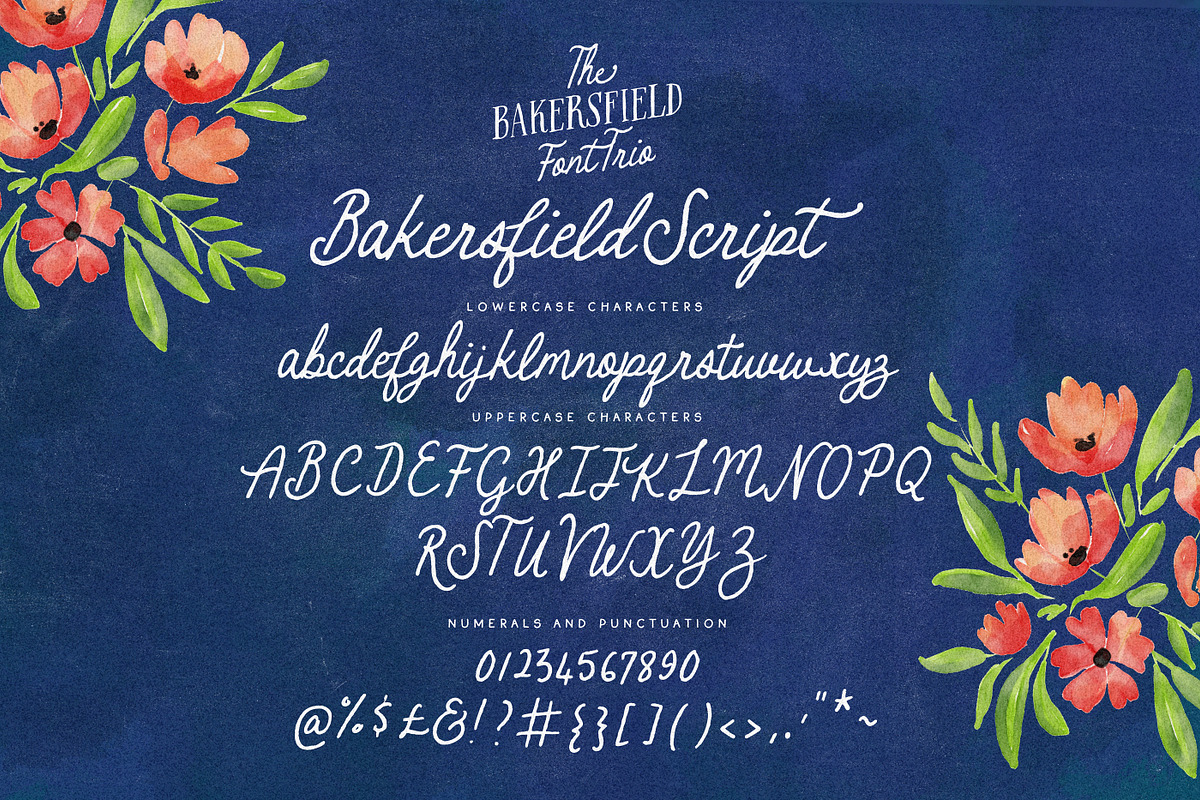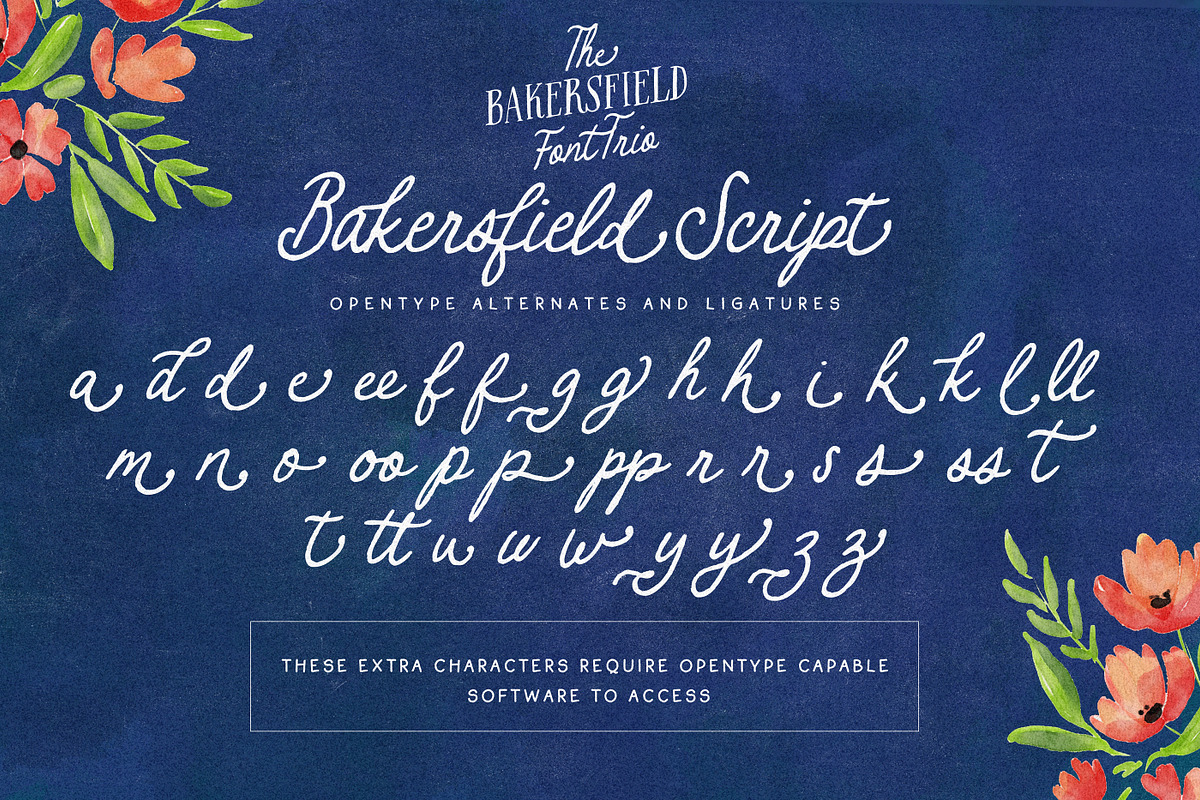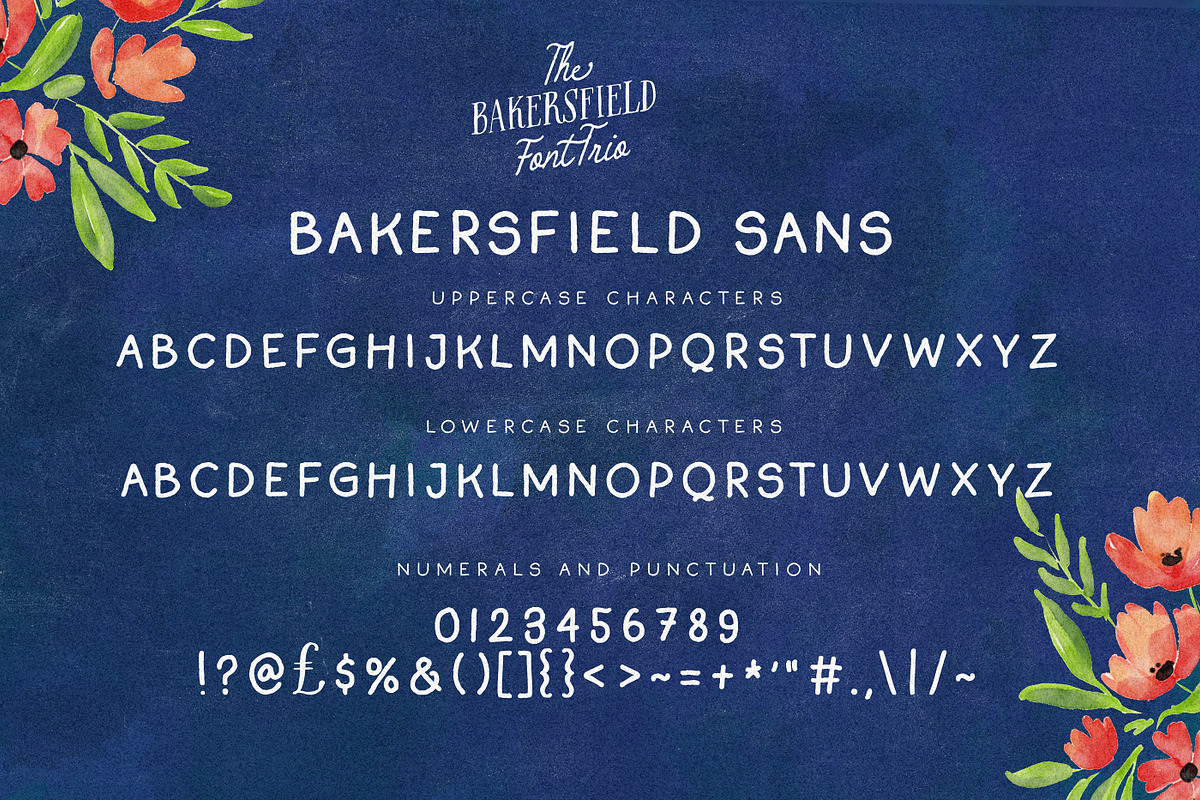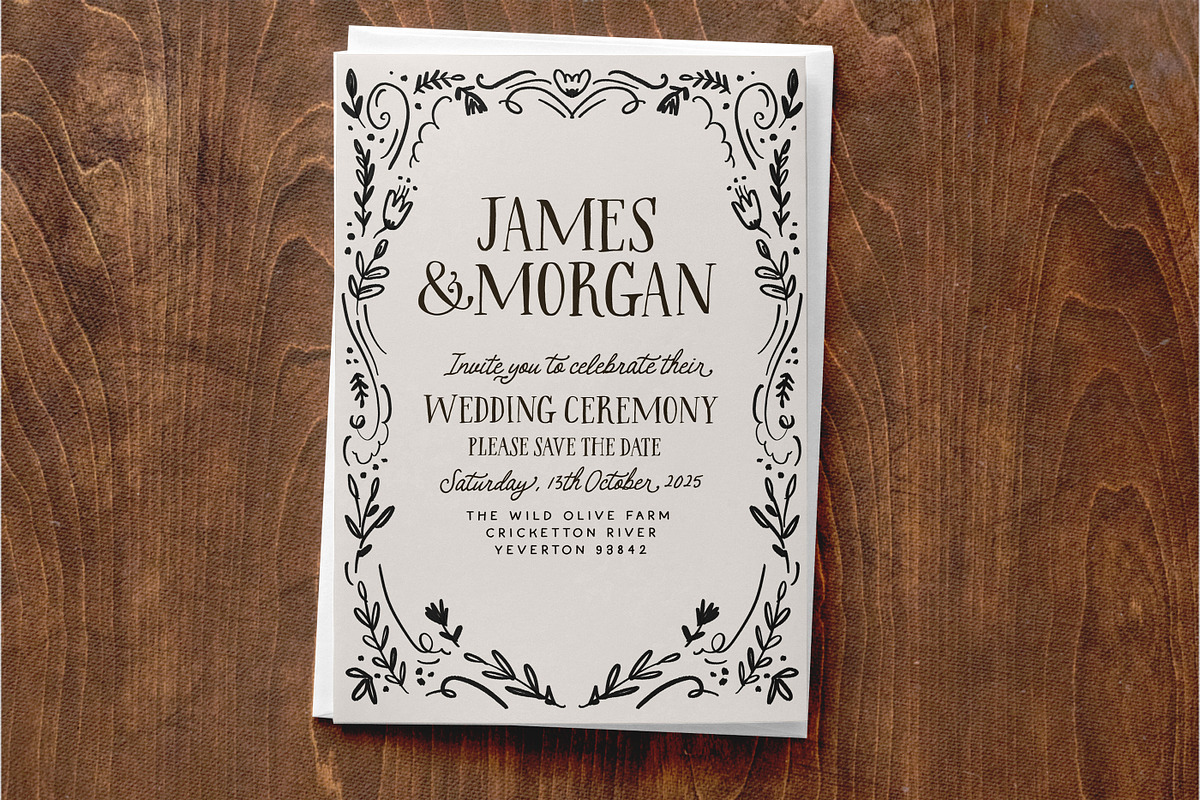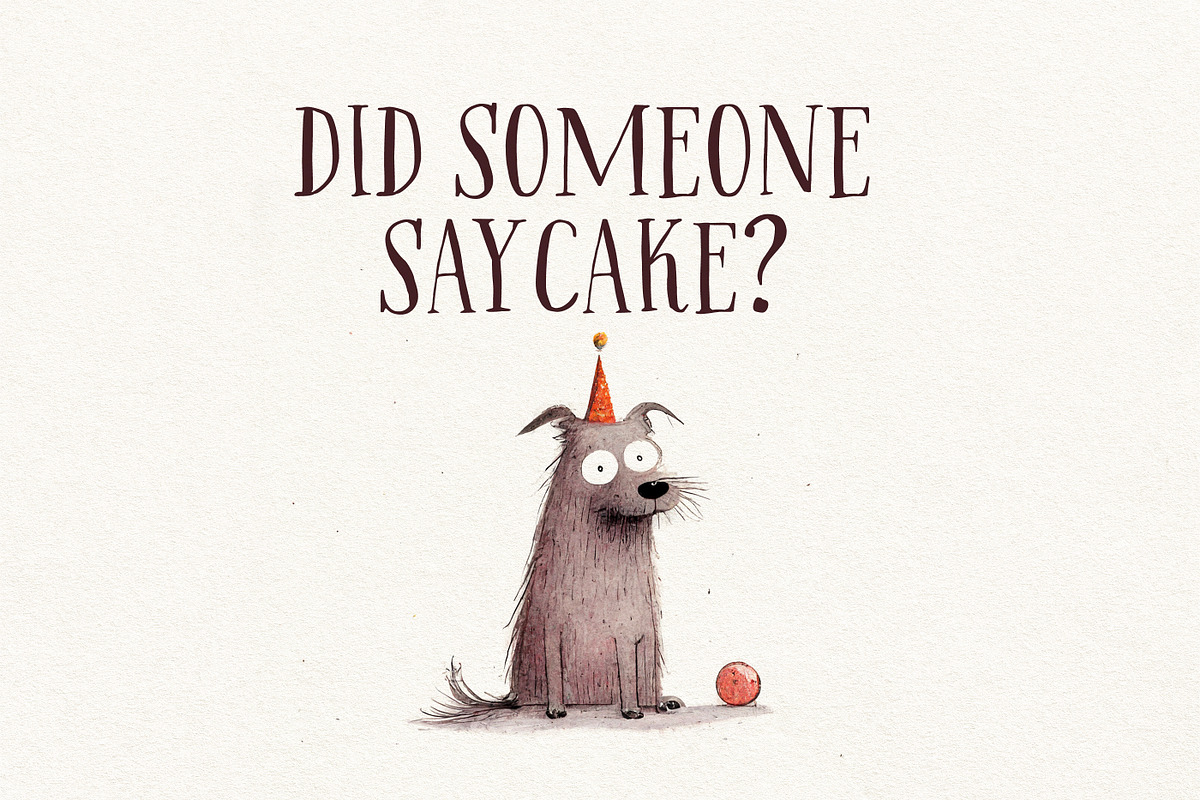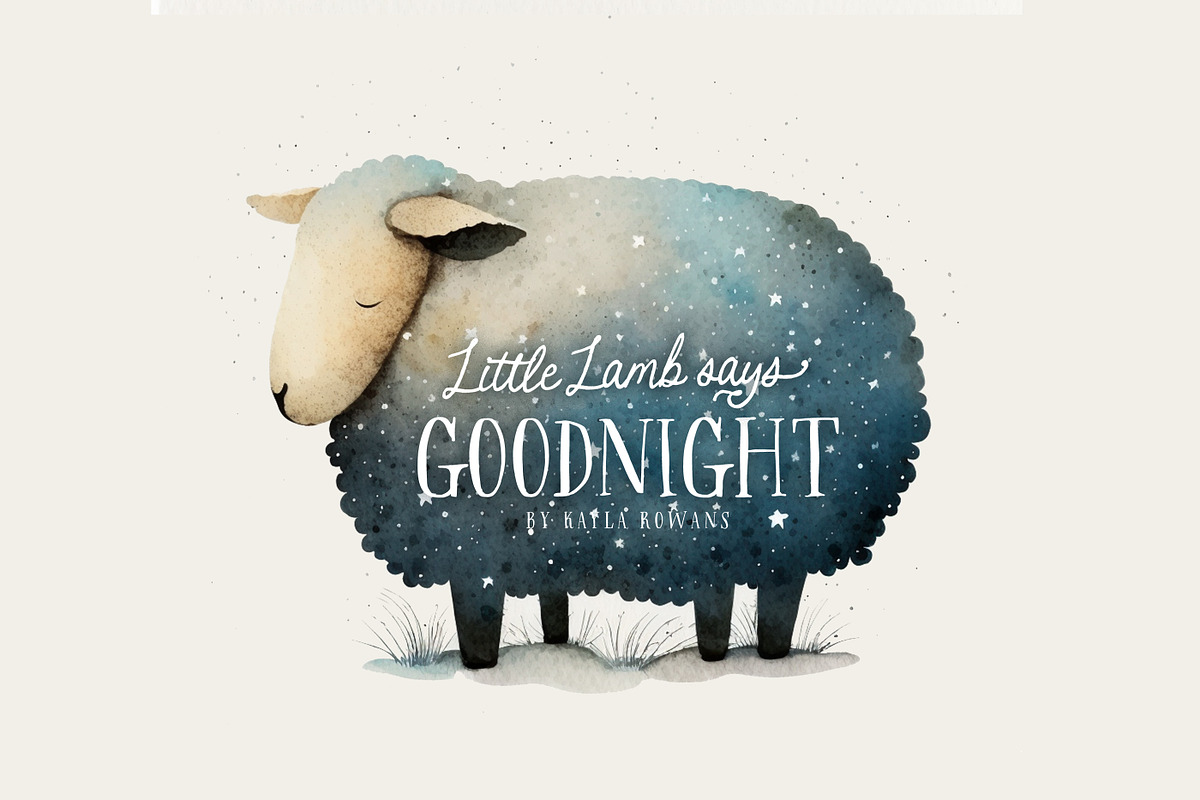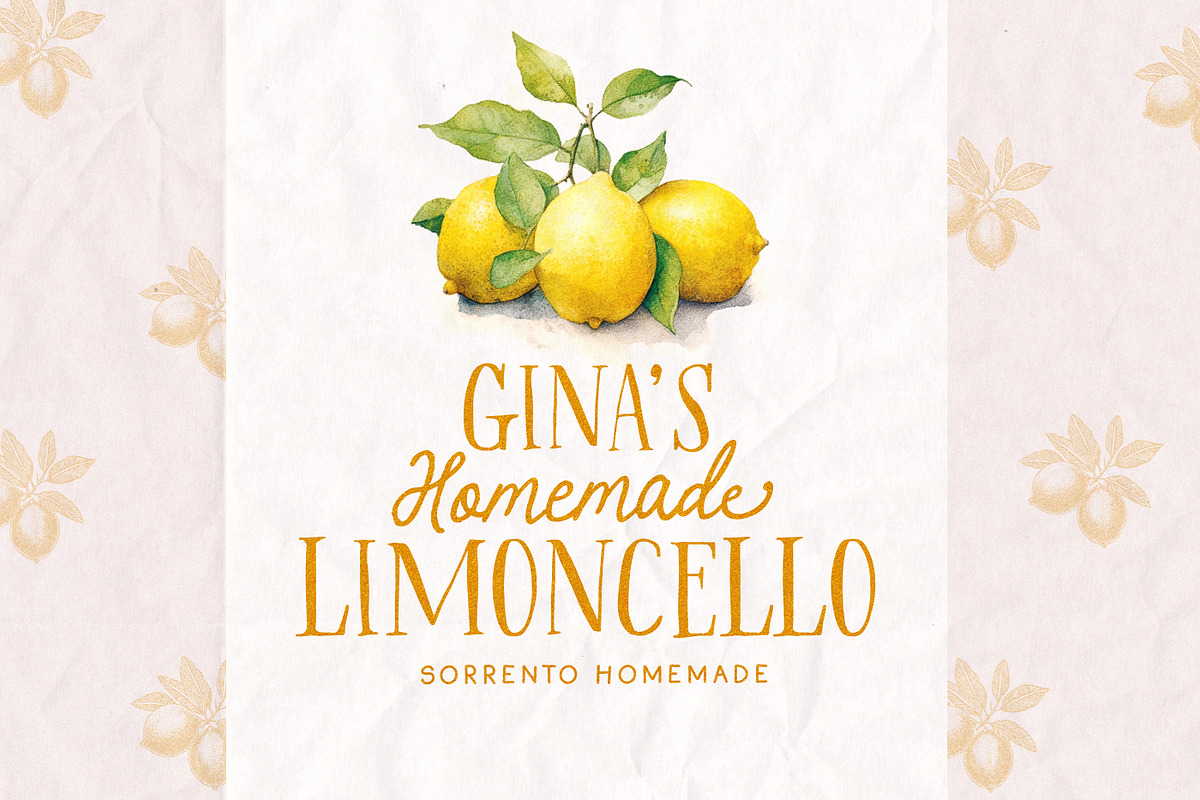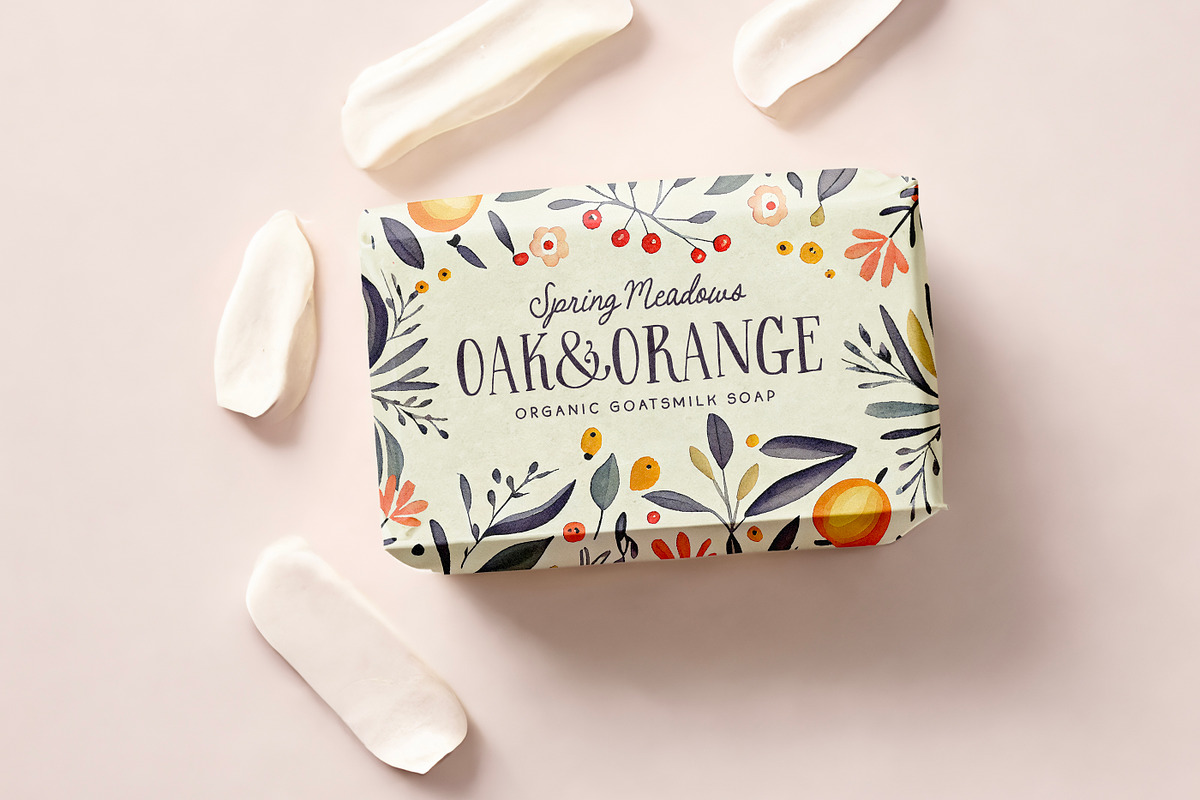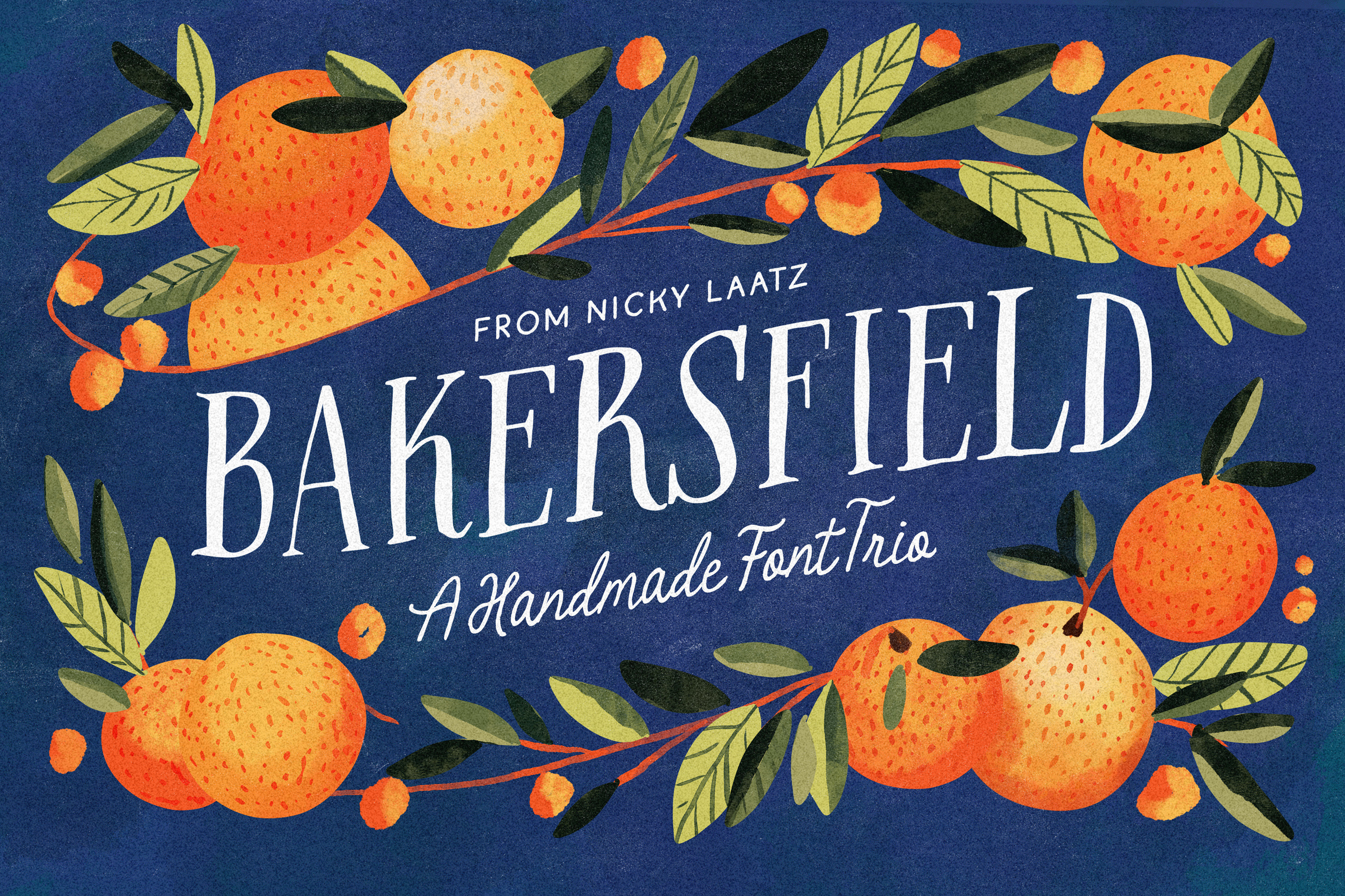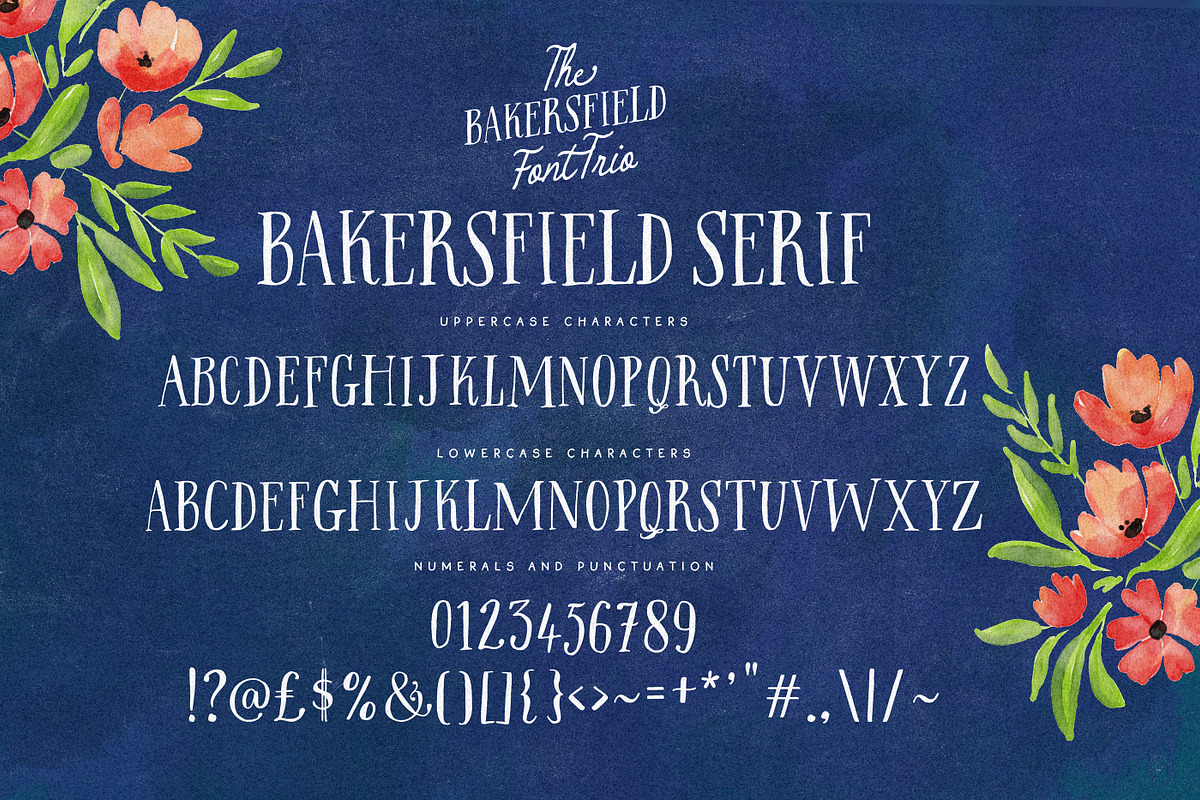
The Bakersfield Font Trio
Say hello to The Bakersfield Font Trio! If you collect my handwritten packs, this one is another must for mixing and matching with your current packs :) There are three fonts included in this typeface pack, one with a variant style, so 4 fonts in total.
1 - Bakersfield Handwritten Serif Perfect for adding that touch of rustic and whimsical:) This font has differing upper and lowercase all caps letters.
2 - Bakersfield Handwritten Script - if she looks familiar, it's because she's a close cousin of the inky edged Neptune Rising Script, but with some tweaking to give her a slightly different personality :) NOTE : To access the sweet little alternate letters and ligatures as seen in the previews, you will need to be using design software that supports Opentype Features such as Photoshop/Illustrator etc.
3 - Bakersfield Sans - a playful little rough and rustic sans serif, for all the details and fine print :)
Please note these fonts have fine inky edge texture to keep its authentic handwritten feel, and is not suitable for cutting machines.